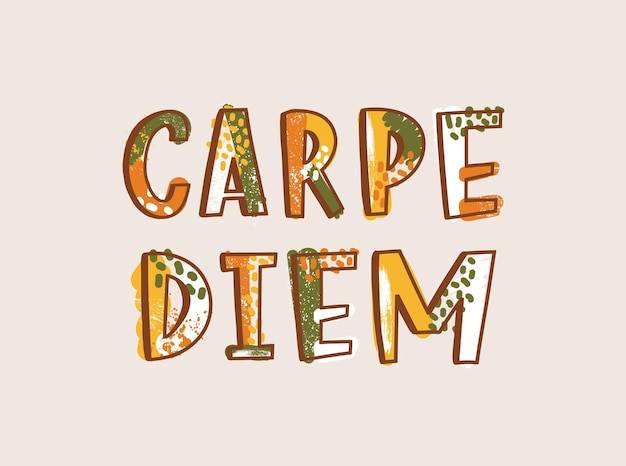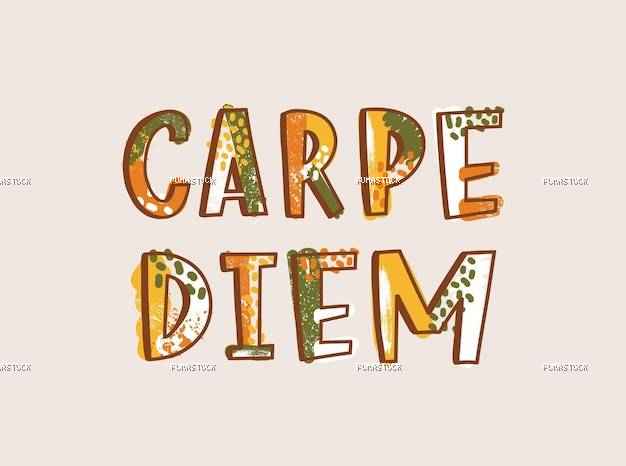
Carpe diem latin phrase written with decorative calligraphic font. cool motivational slogan or inspirational quote isolated on light background. creative modern vector illustration for apparel print